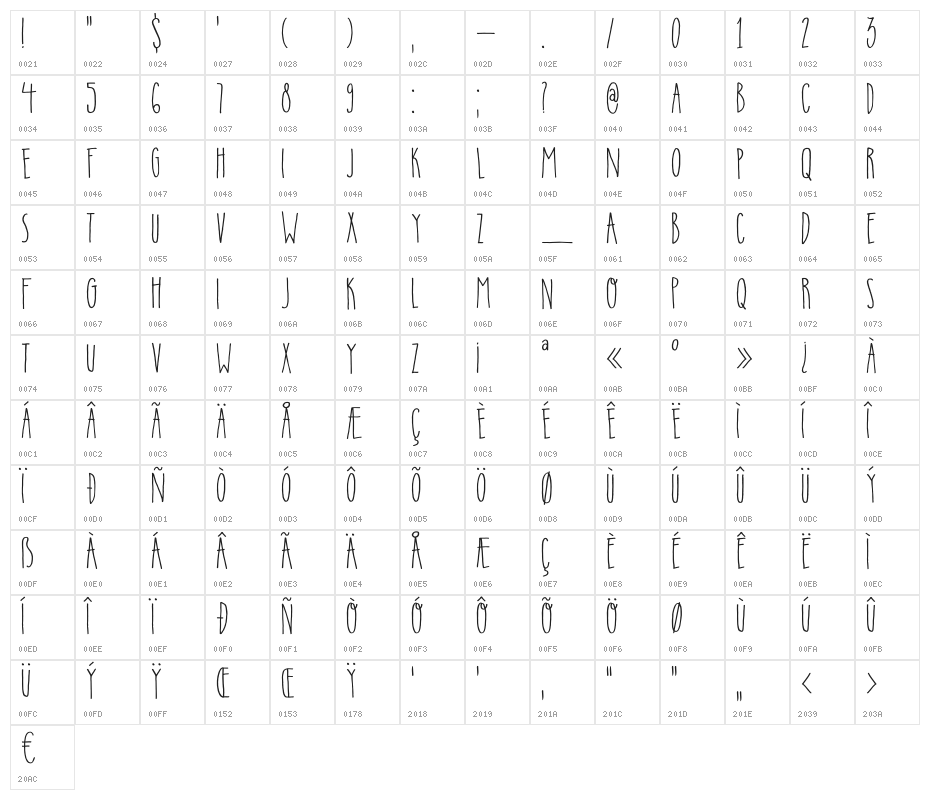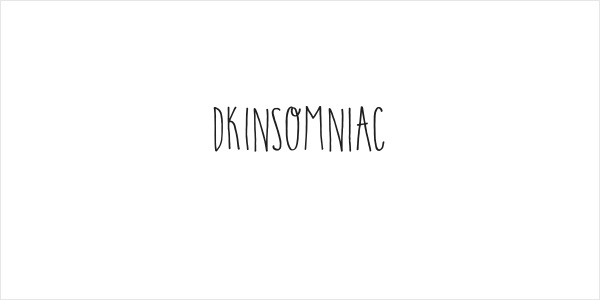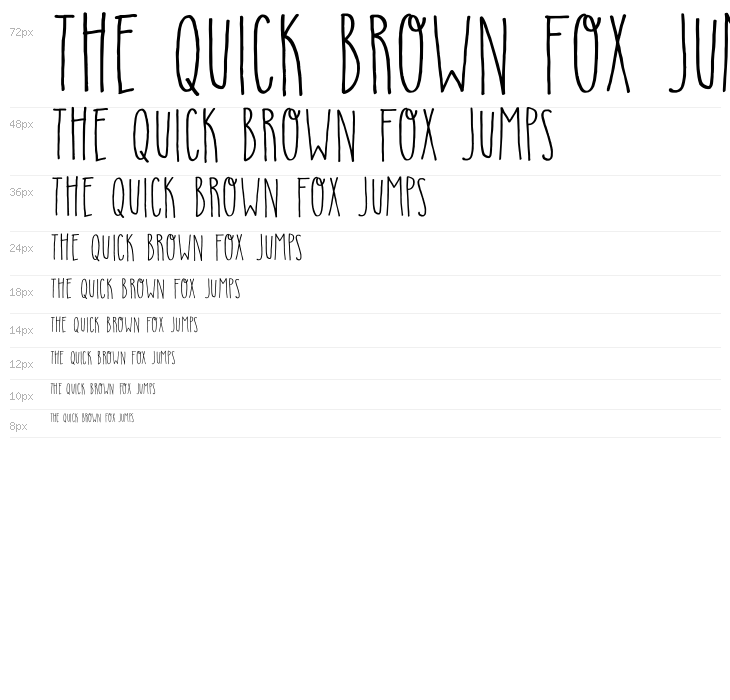
DKInsomniac Font
DKInsomniac Description
This font features a quirky, hand-drawn style with tall, narrow characters. The letters have a playful and informal appearance, with uneven lines that give it a casual, artistic feel. The uppercase and lowercase letters are consistent in their whimsical design, while the numbers maintain the same playful aesthetic. Special characters are creatively integrated, adding to the font's unique personality. This font is ideal for projects that require a touch of creativity and individuality.
| Proposed Projects | Perfect for creative projects such as children's book covers, greeting cards, and playful branding. |